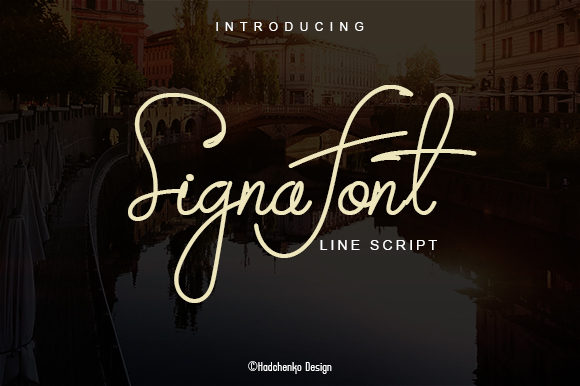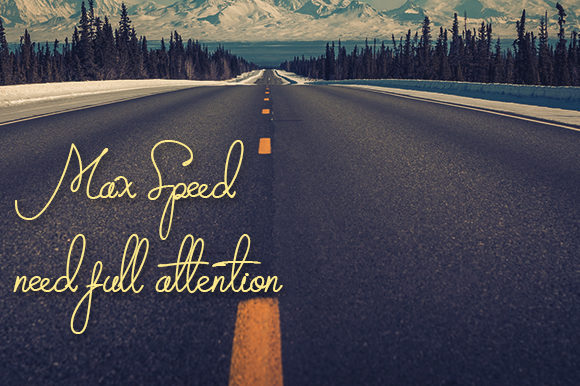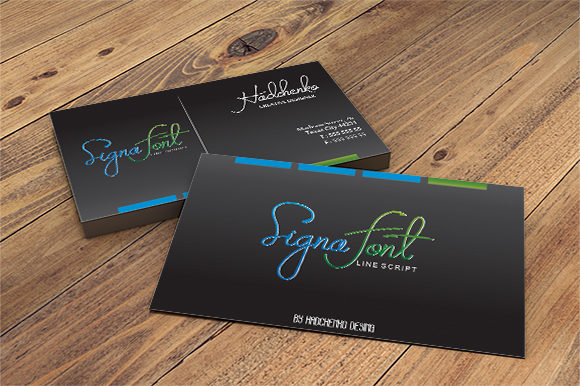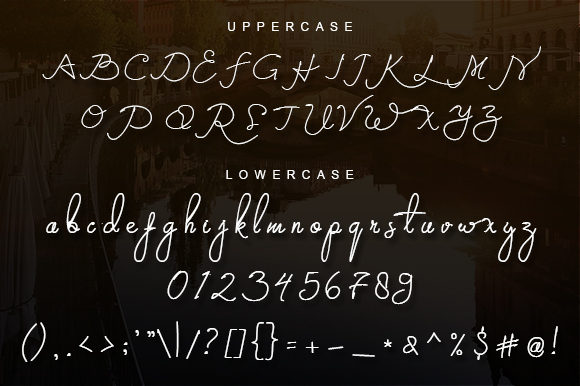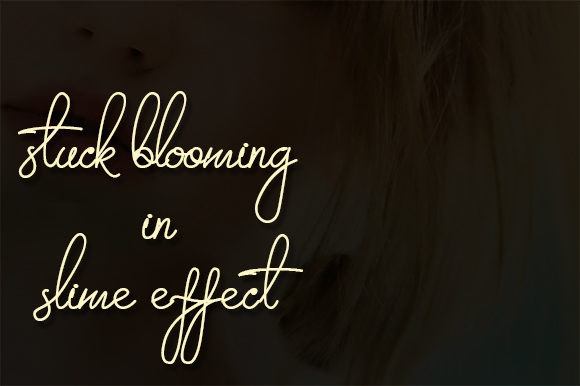
Signa Font
About Signa Font
Signa is a light and charming handwritten font with an incredible feel. It will add a touch of sophistication to any creative project!